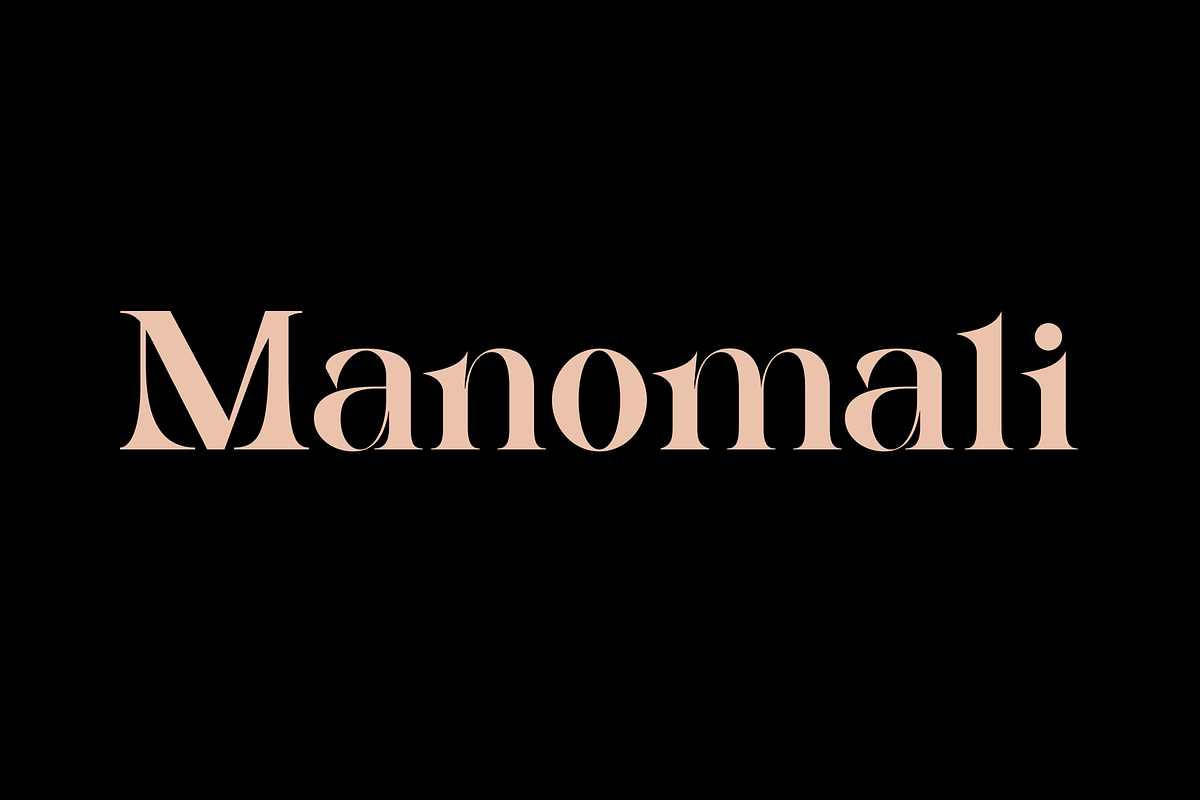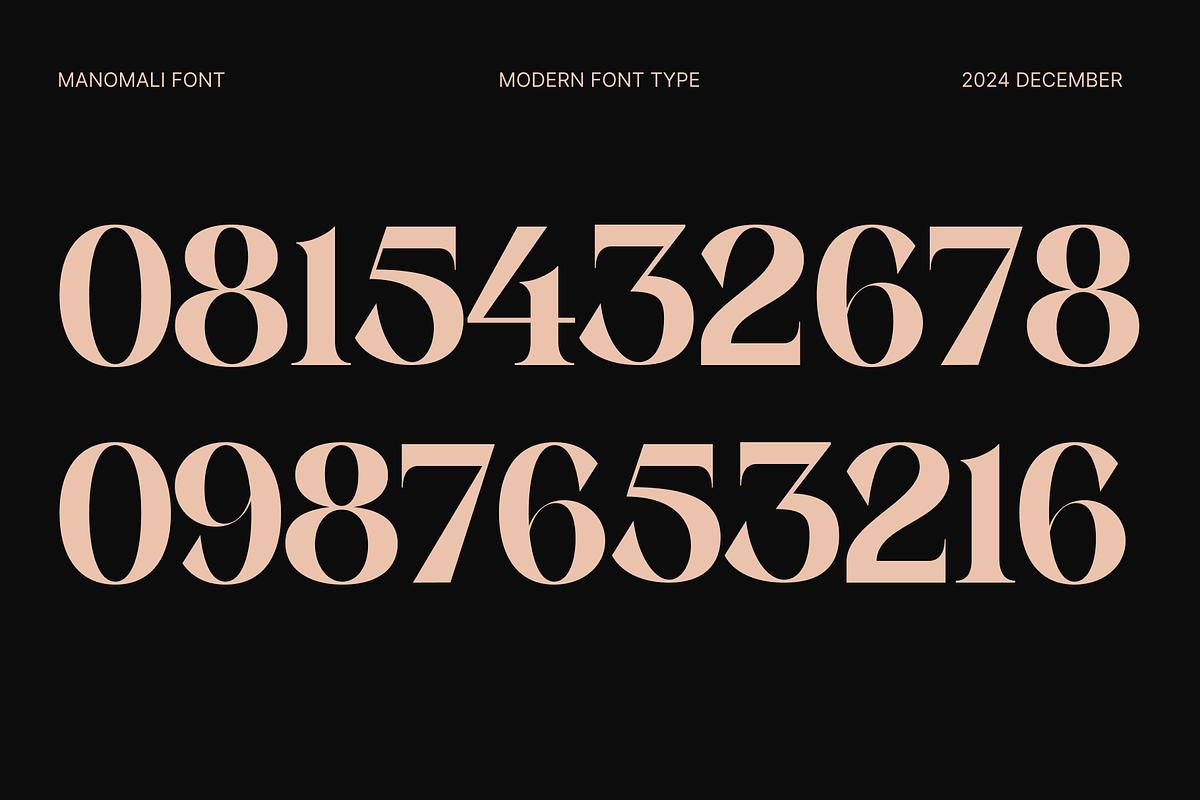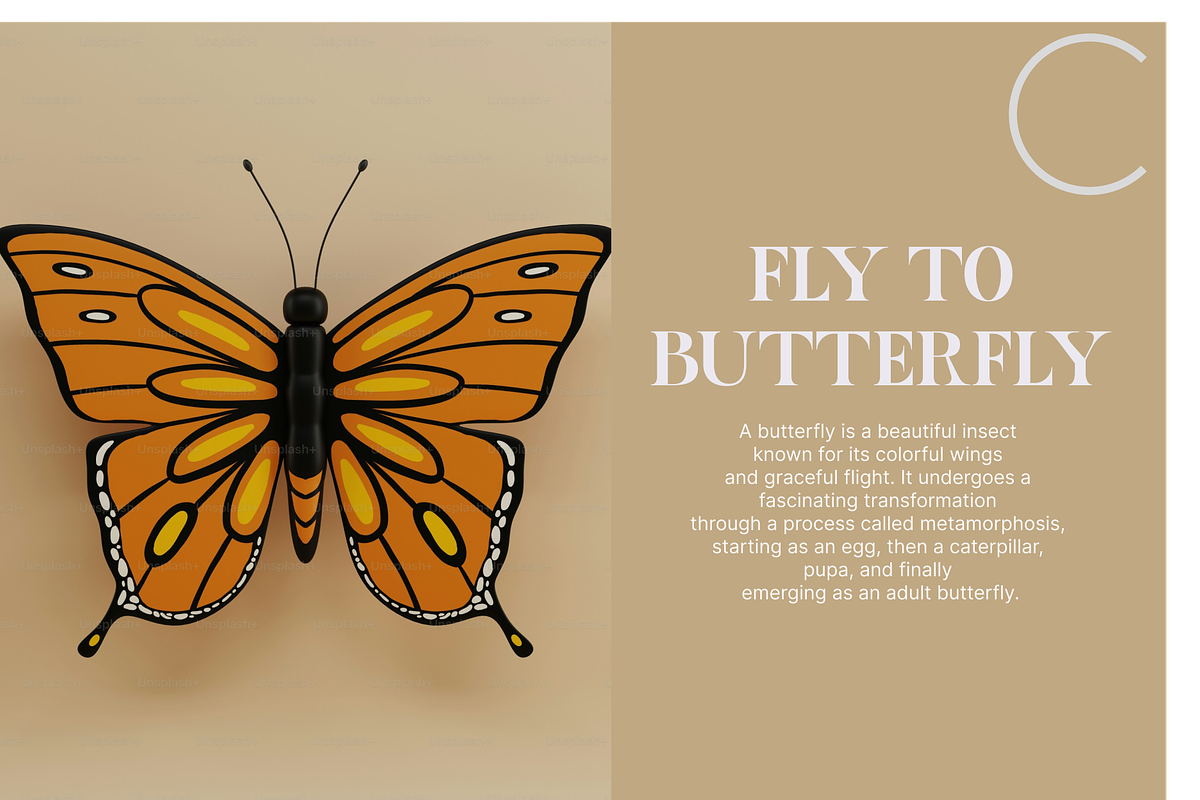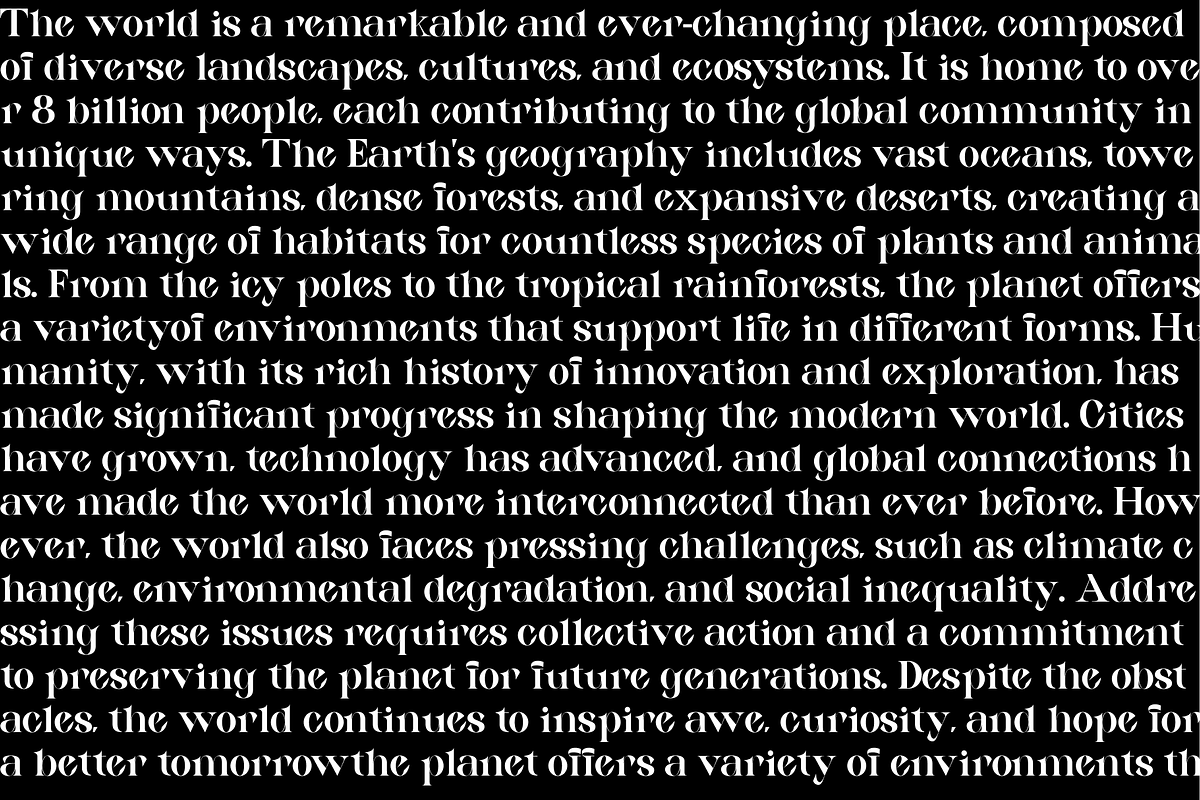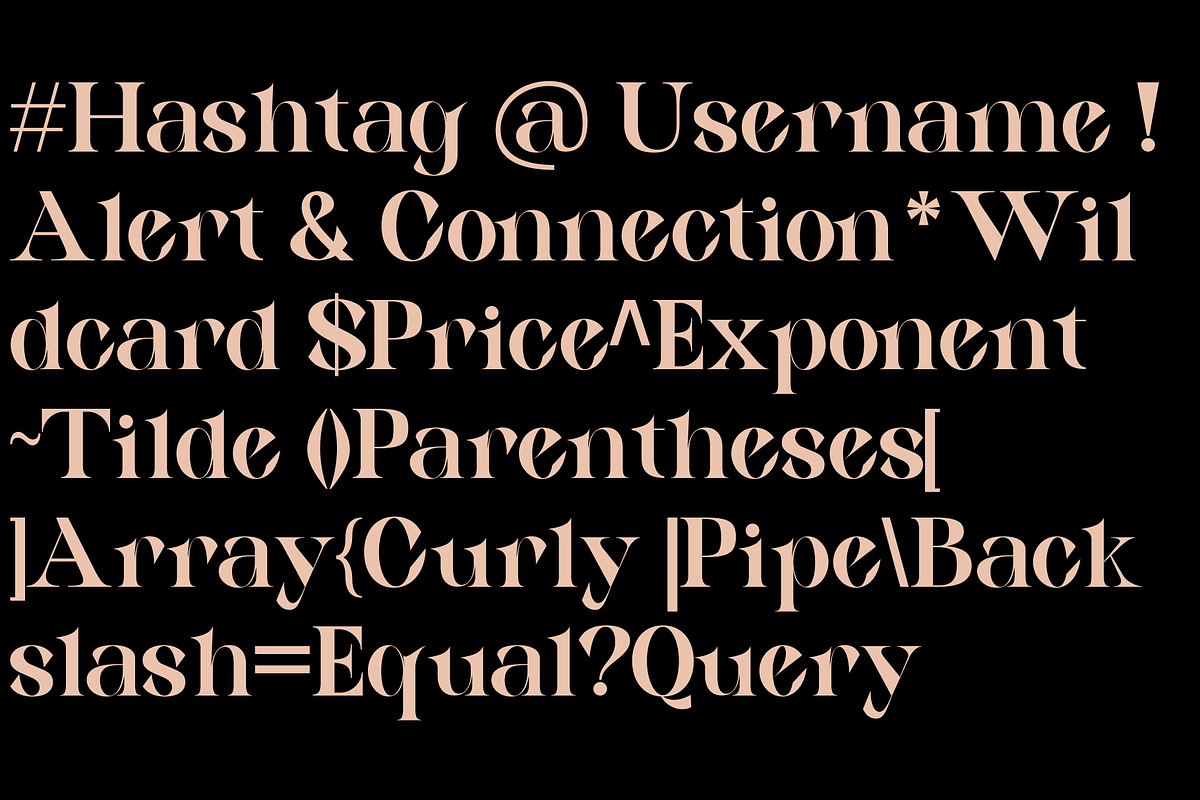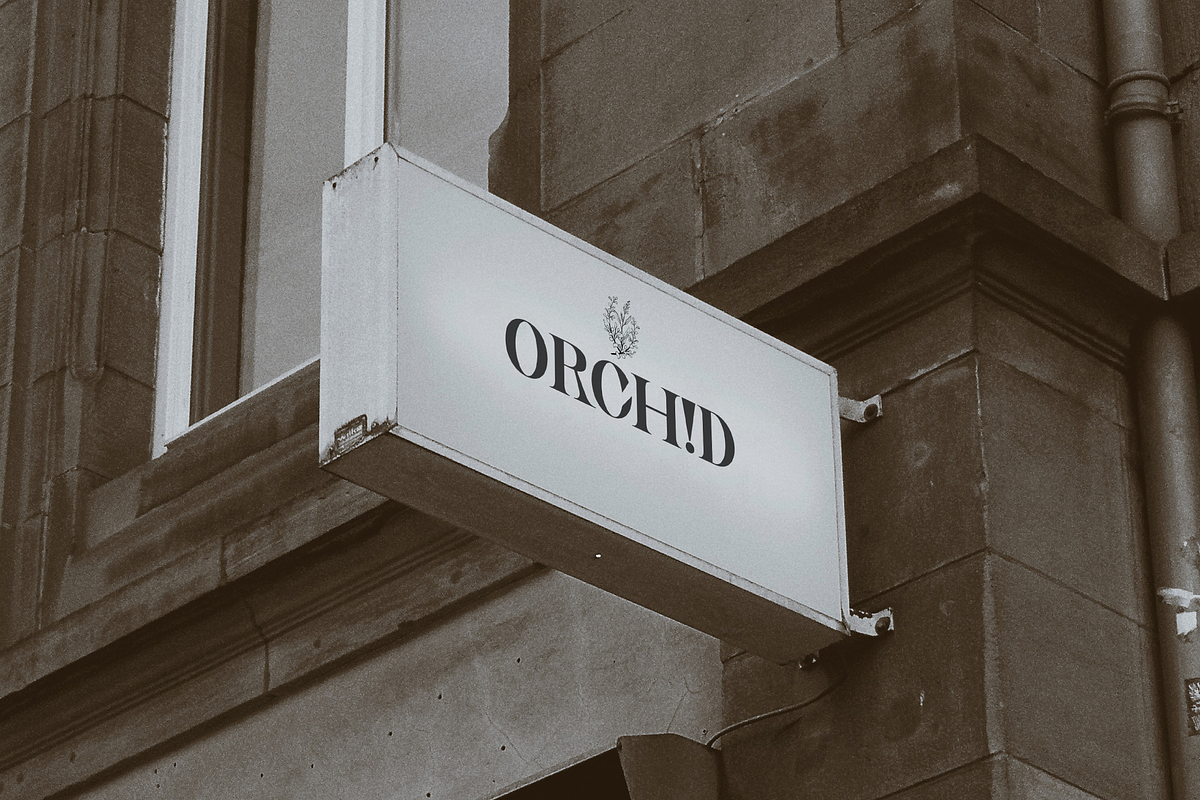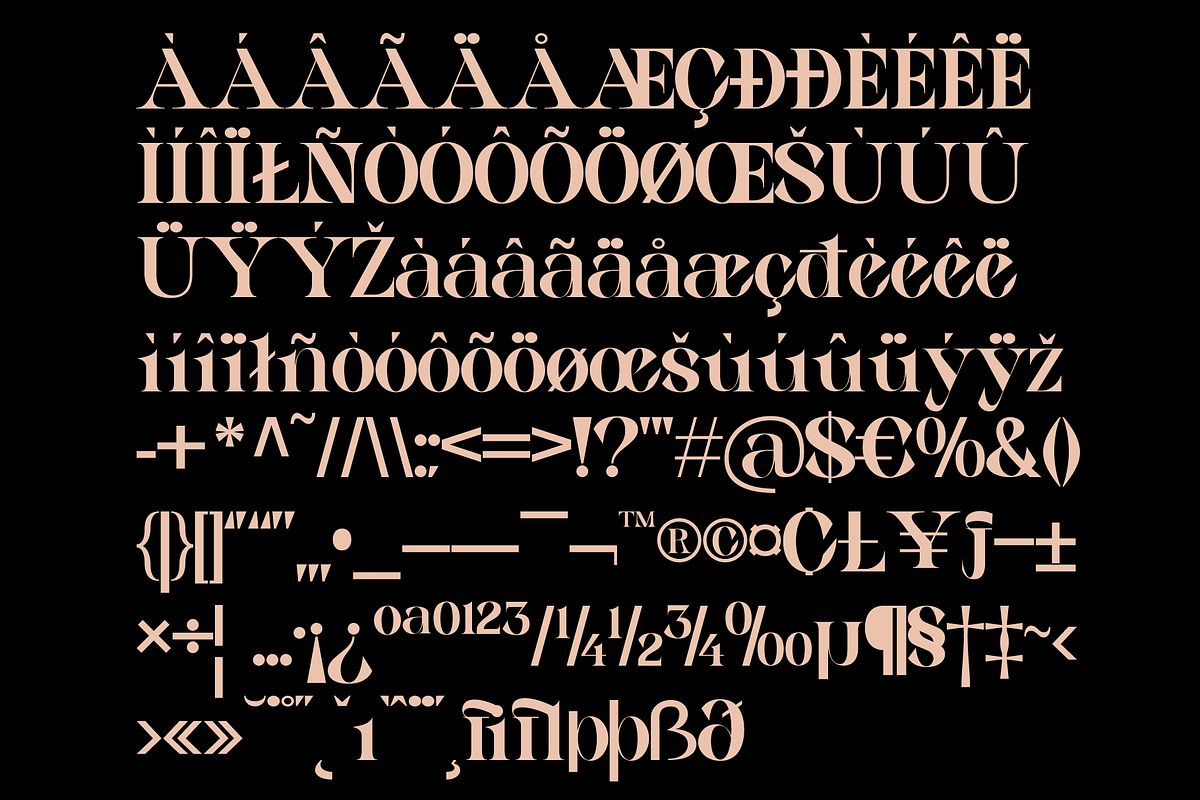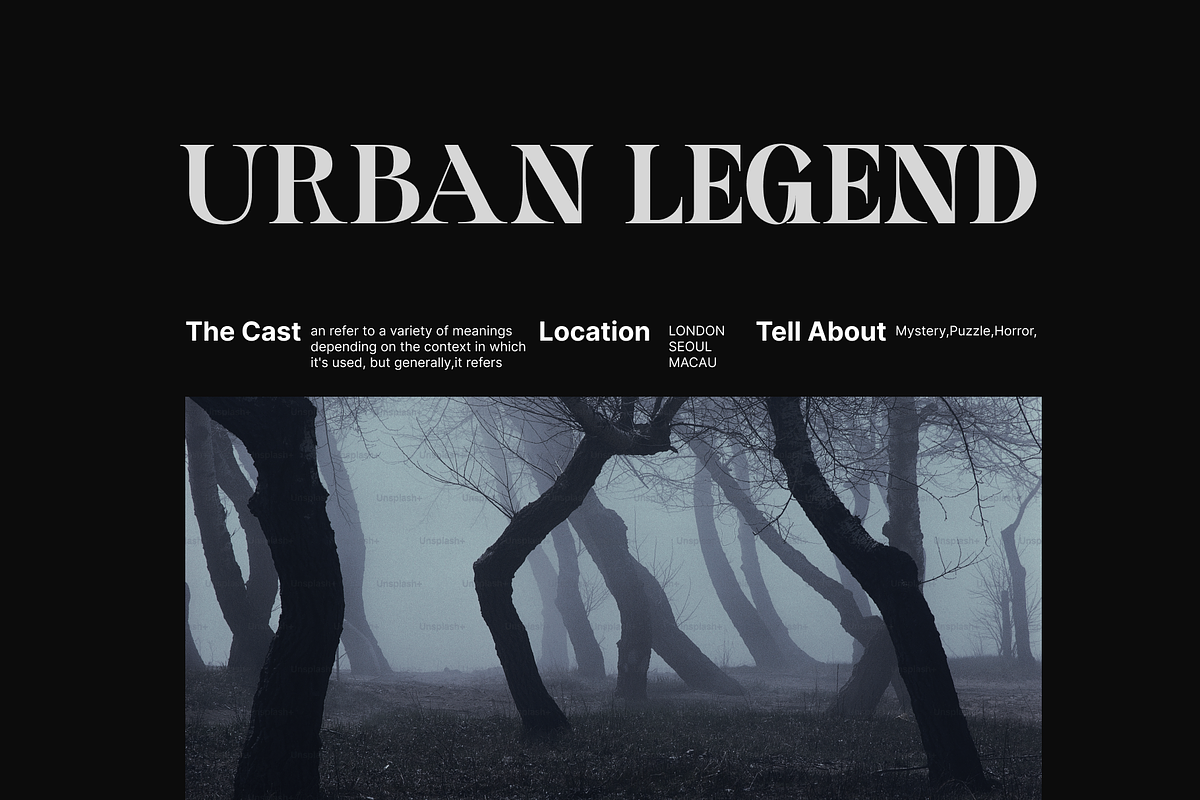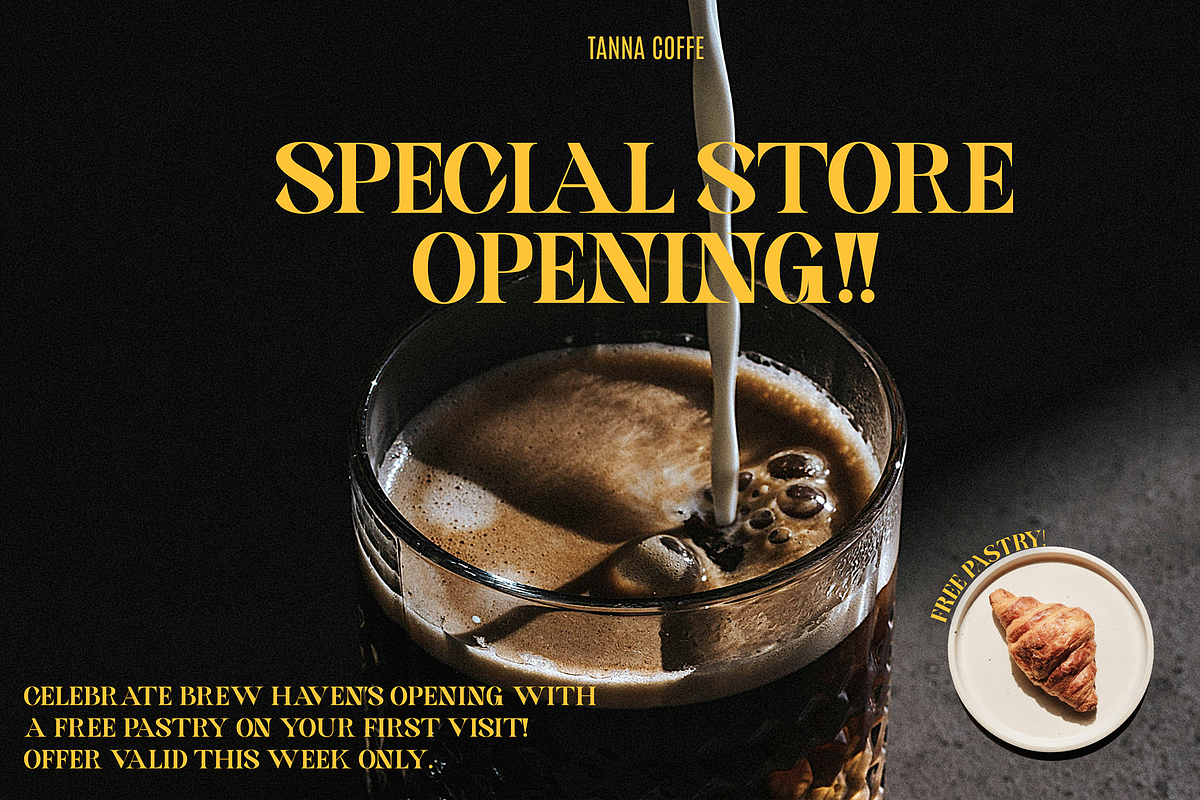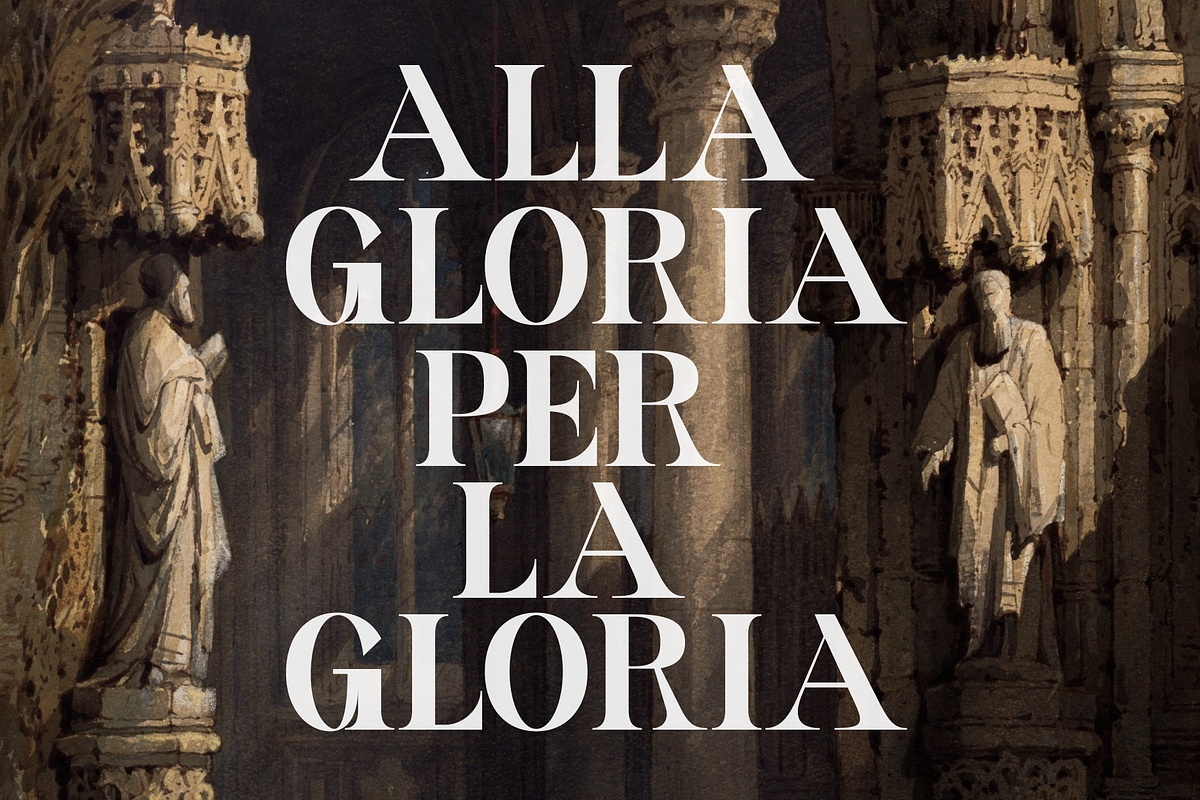
Manomali
Manomali is a classic, luxurious style font which is very suitable for use in your business, such as logos, posters, magazines, film titles and is very helpful for other businesses.